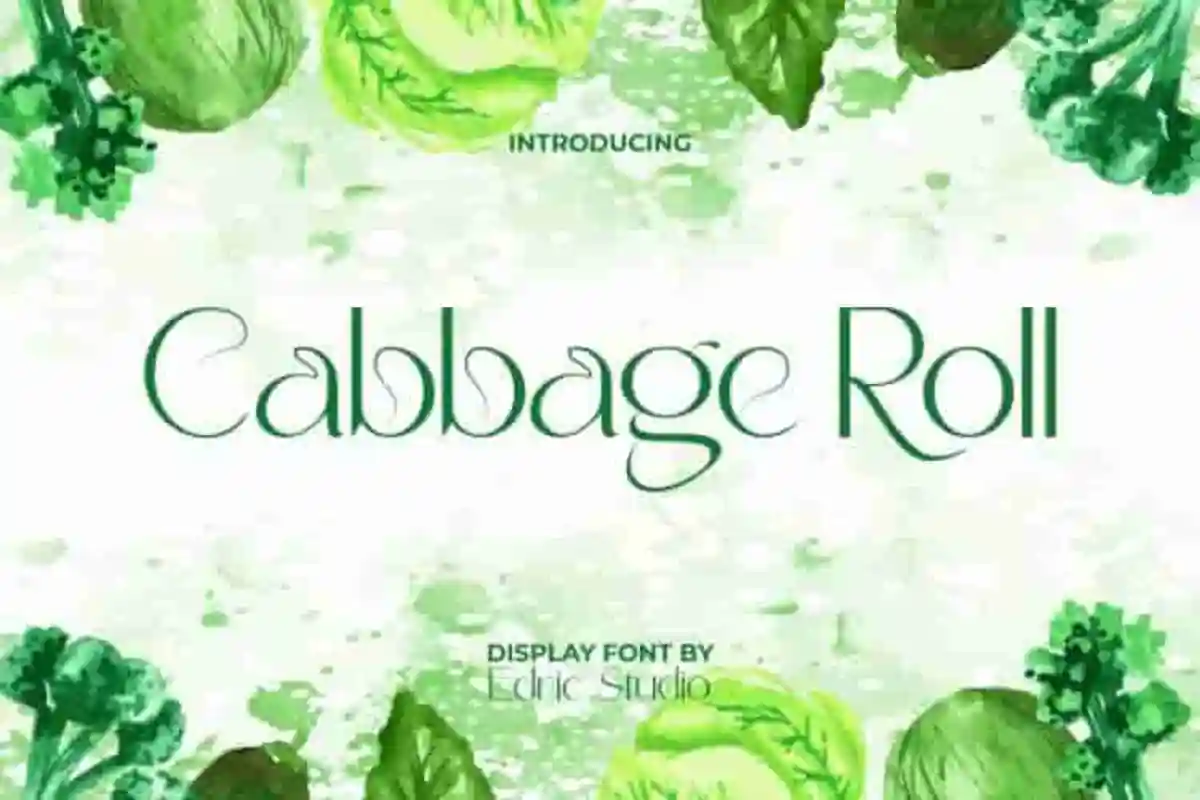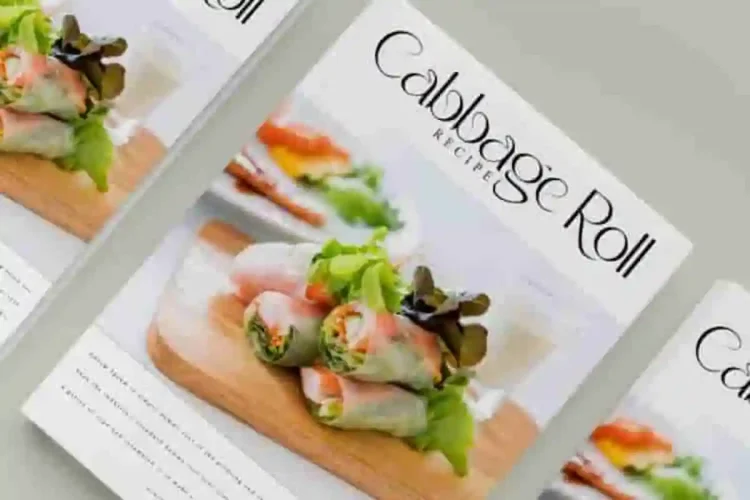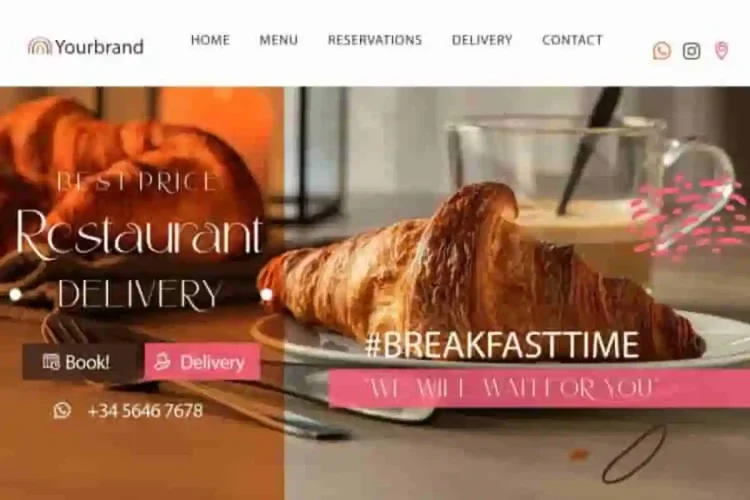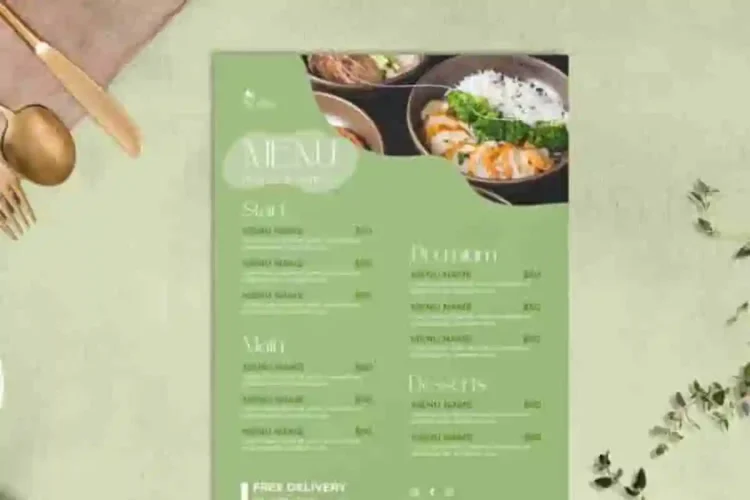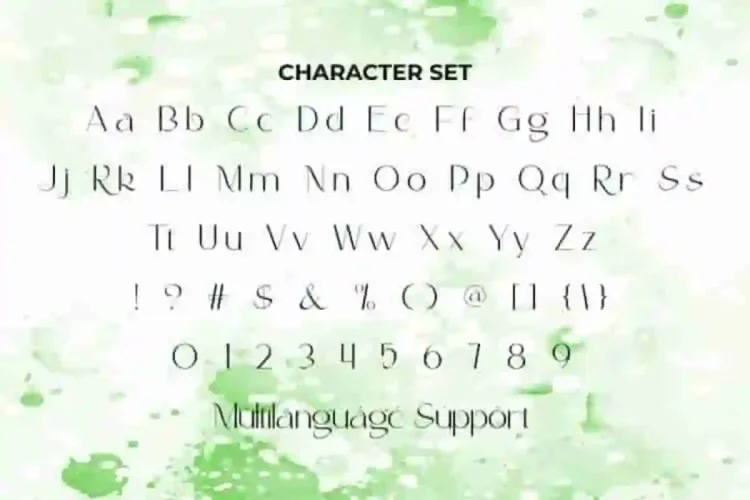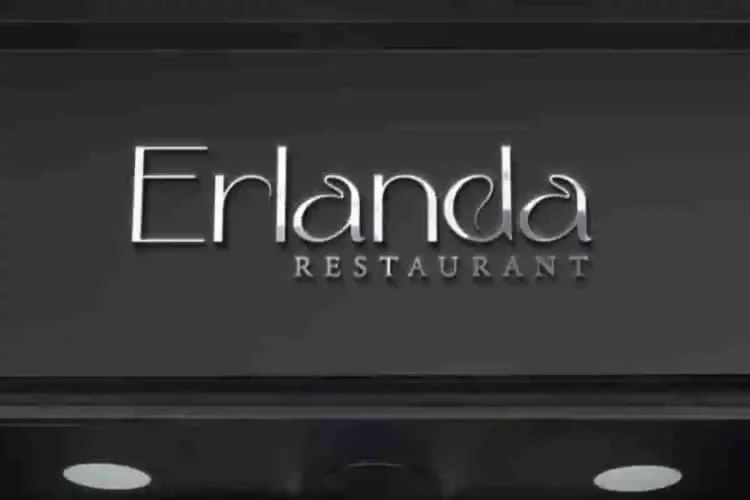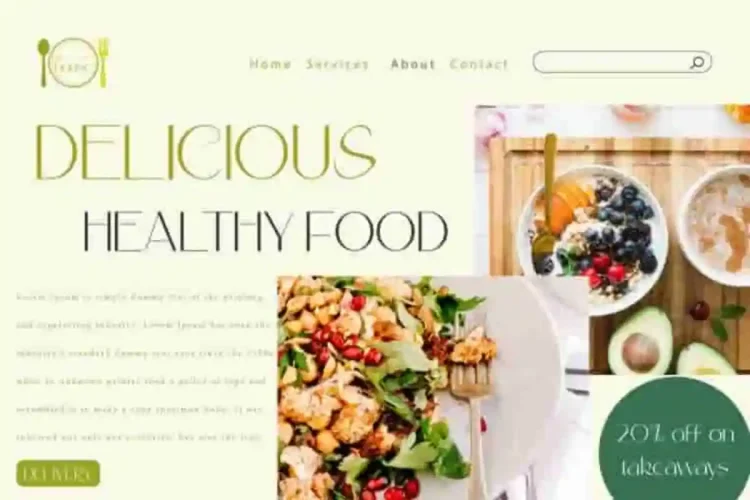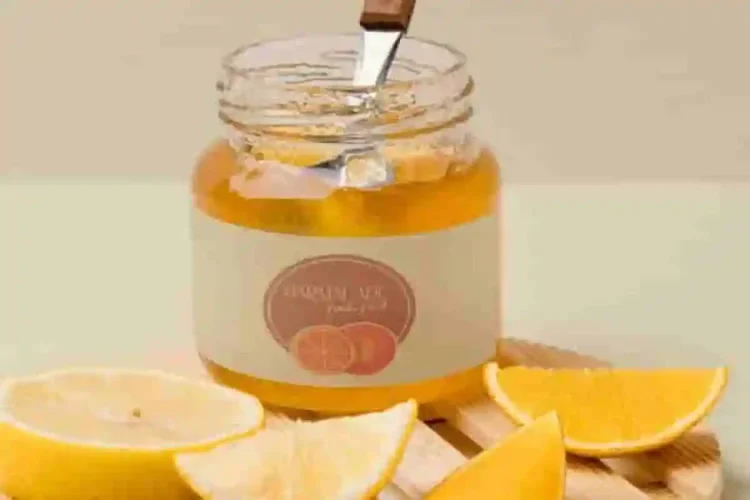
Cabbage Roll
Cabbage Roll Modern Font is a simply elegant and modern serif display font that inspired from healthy vegetable name. With its clean lines and stylish form, this typeface brings sophistication and freshness to any project. Perfectly crafted for designers who want elegance with a contemporary touch, Cabbage Roll Font is versatile and easy to use.
Cabbage Roll Modern Display Font comes with a full set of Uppercase and Lowercase letters, Number, Punctuation and Symbol. Ideal for apps, brochures, catalogues, packaging, product labels, logos, restaurant menus, posters, websites, and stationery, this font adapts seamlessly to a variety of industries.
Cabbage Roll Modern Font a playful typeface with unique decoration in each character. Combine different characters for a bespoke, handcrafted feel. It’s tested to work well in the Adobe Apps (Illustrator, Adobe InDesign, Adobe Photoshop) even work on Microsoft Word. Thanks to PUA encoding, every glyph and alternate character is accessible for custom creative control.